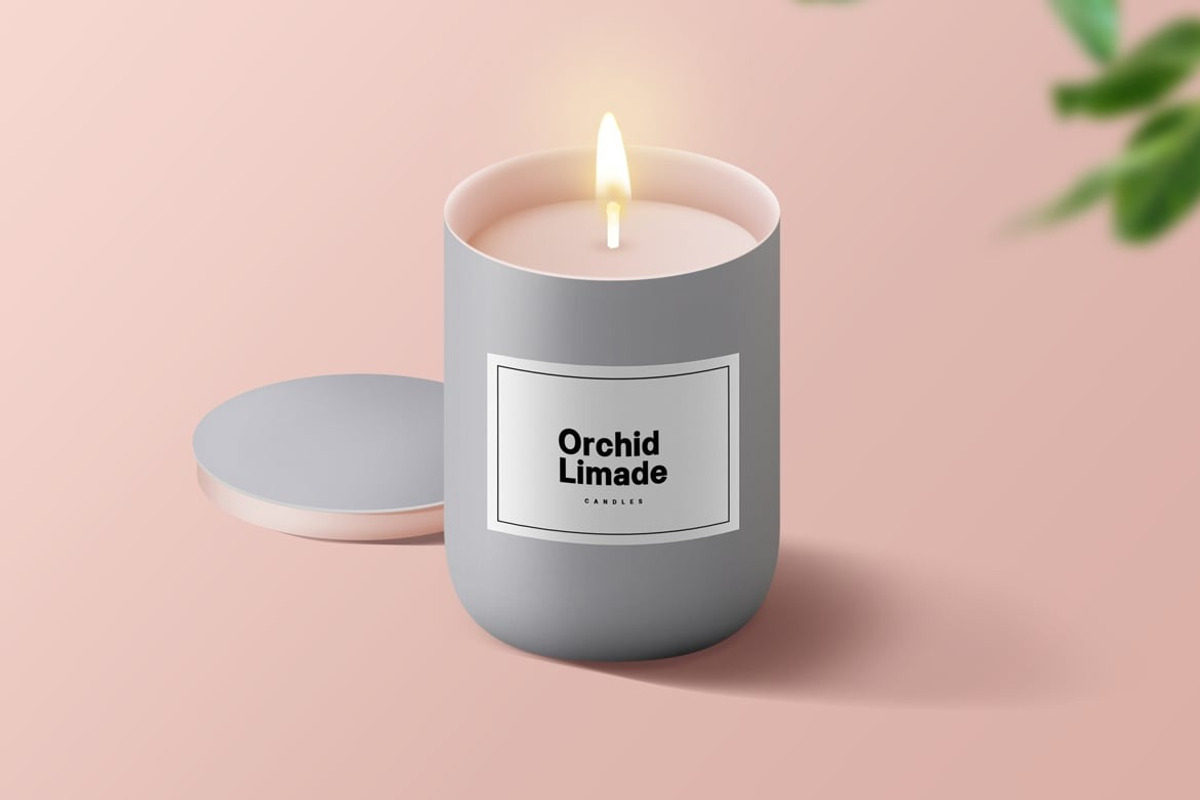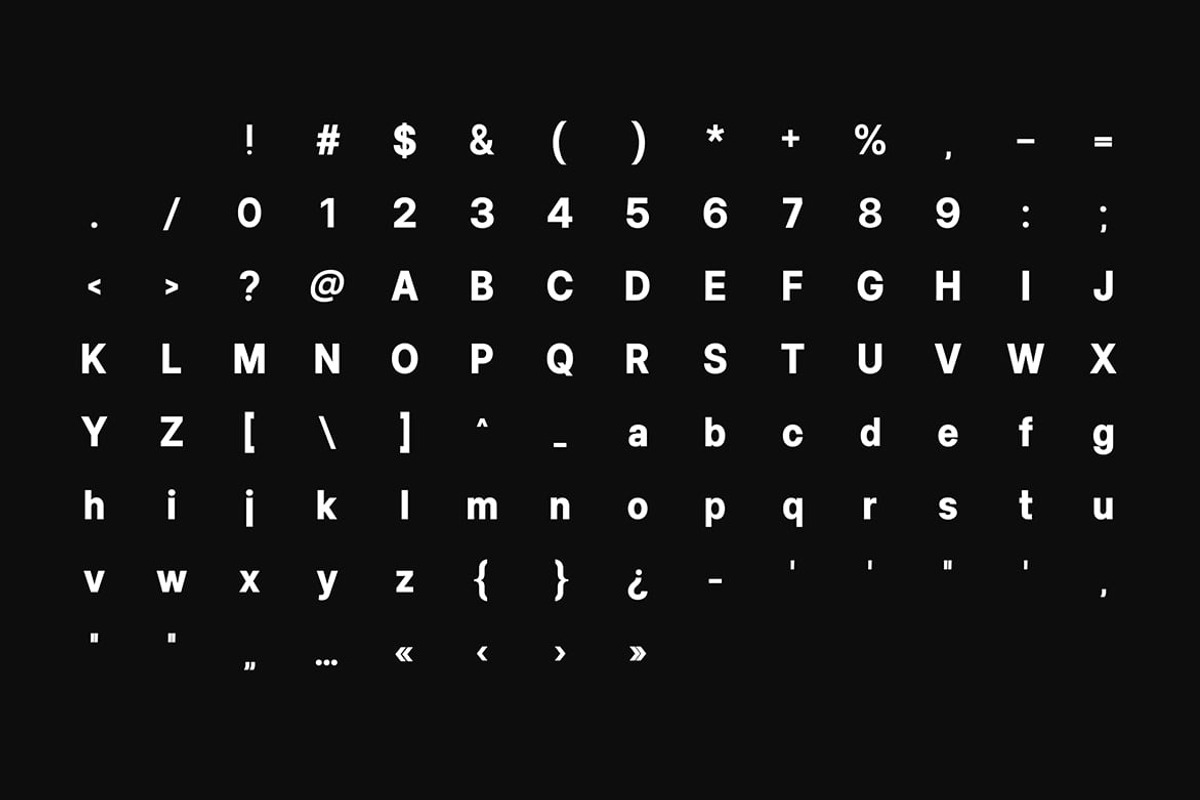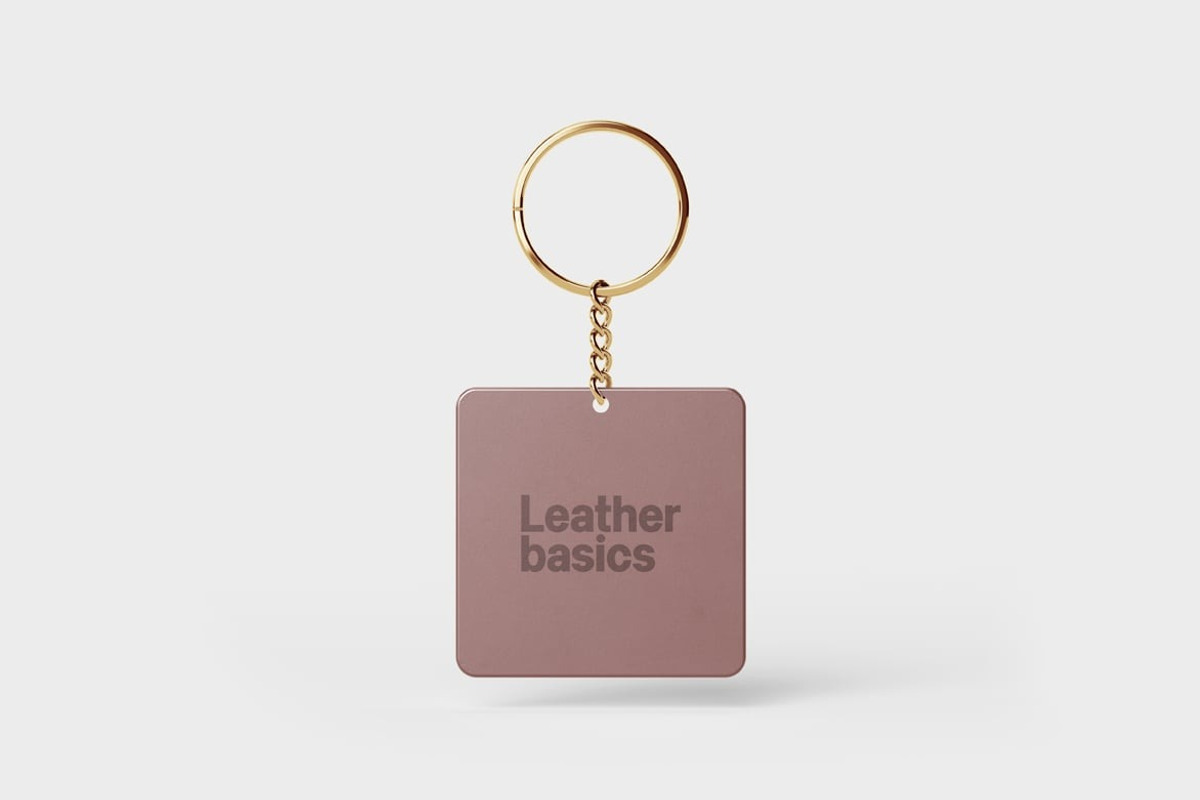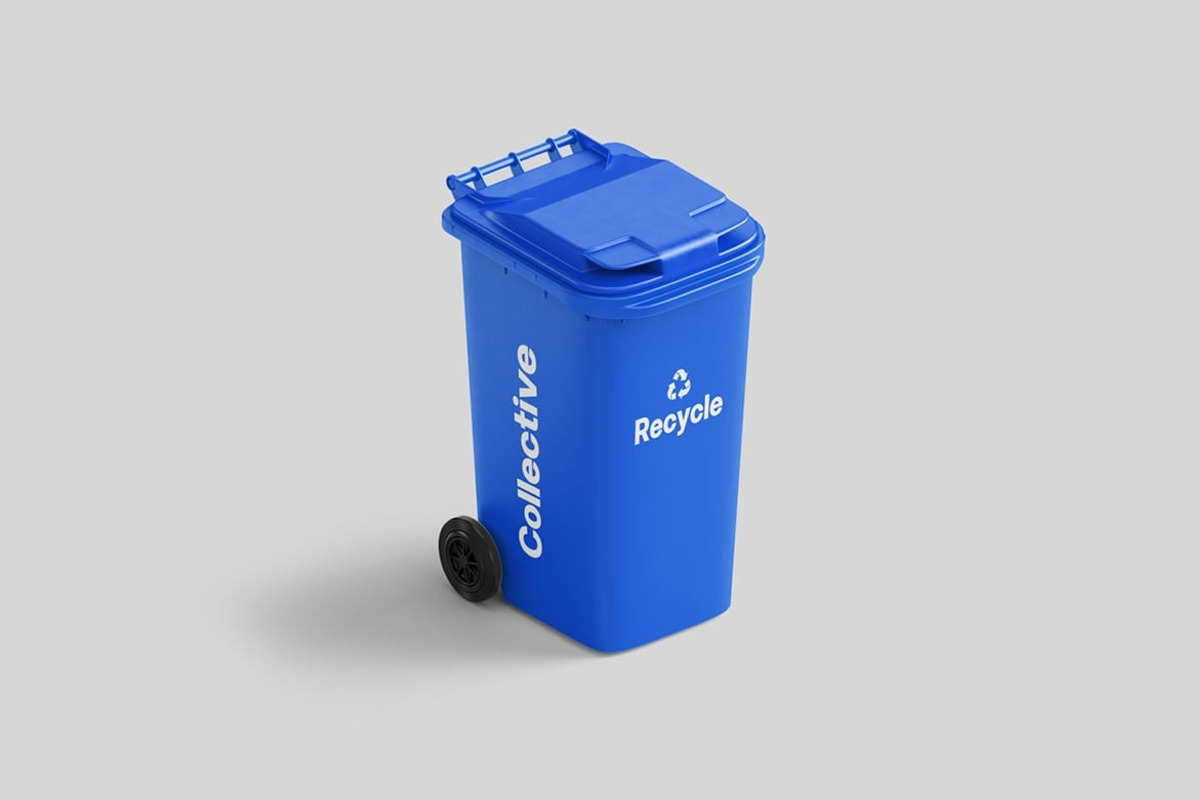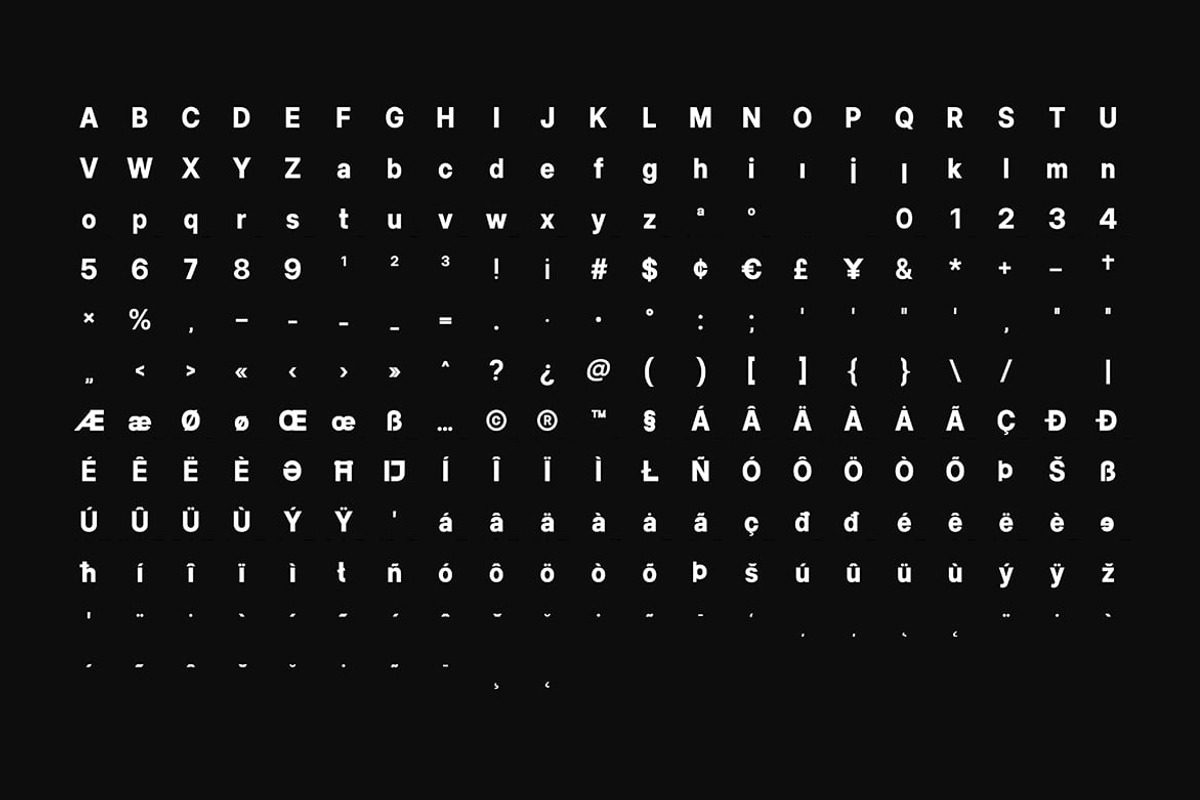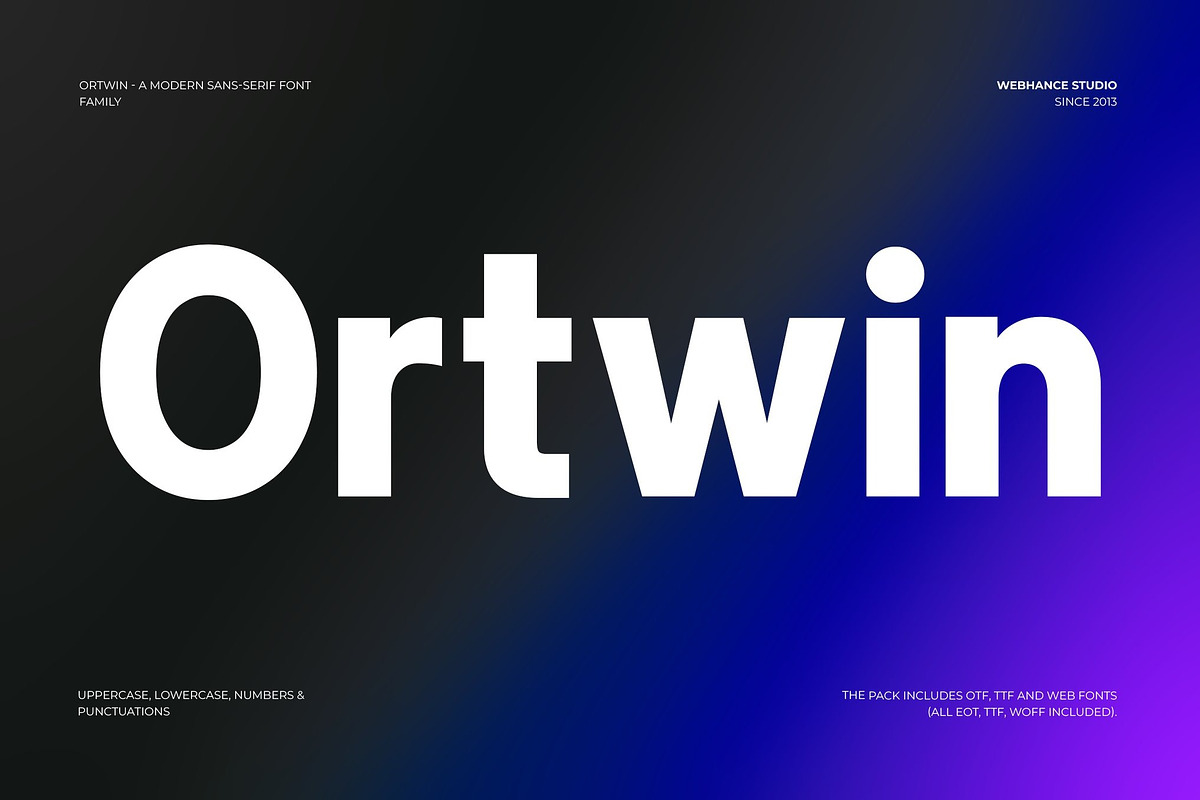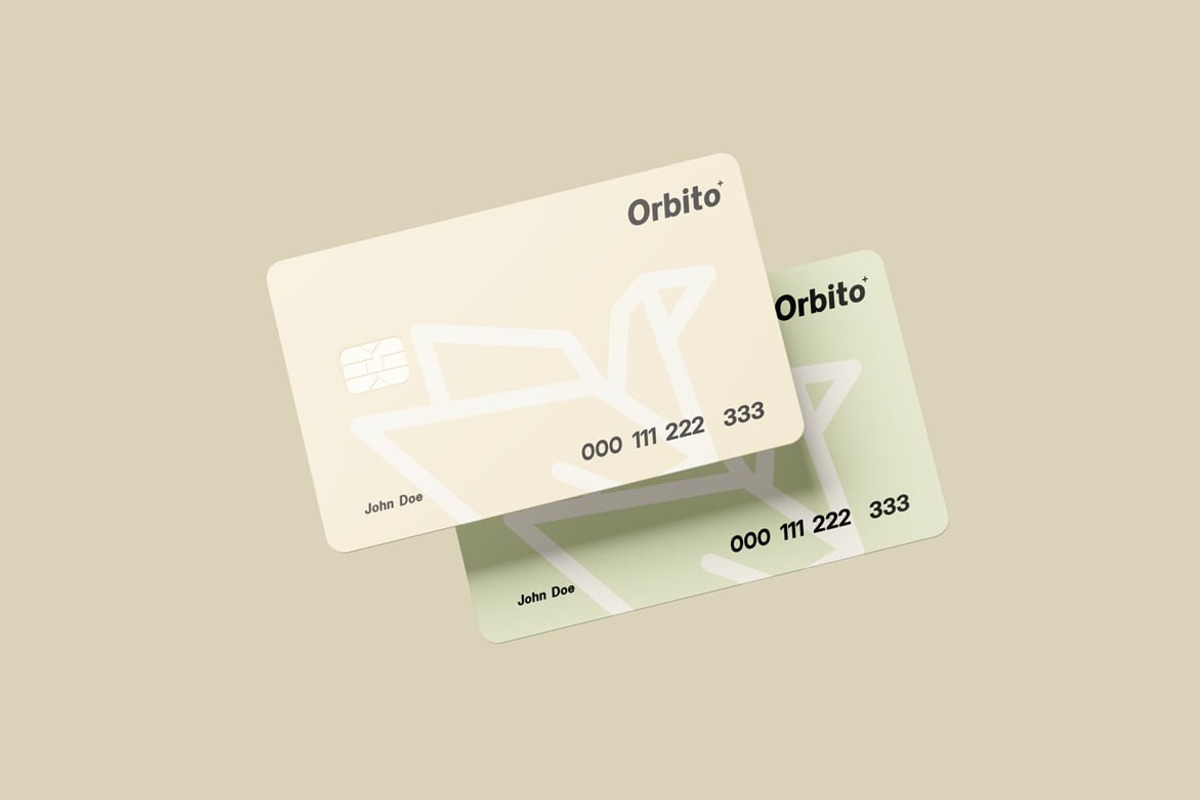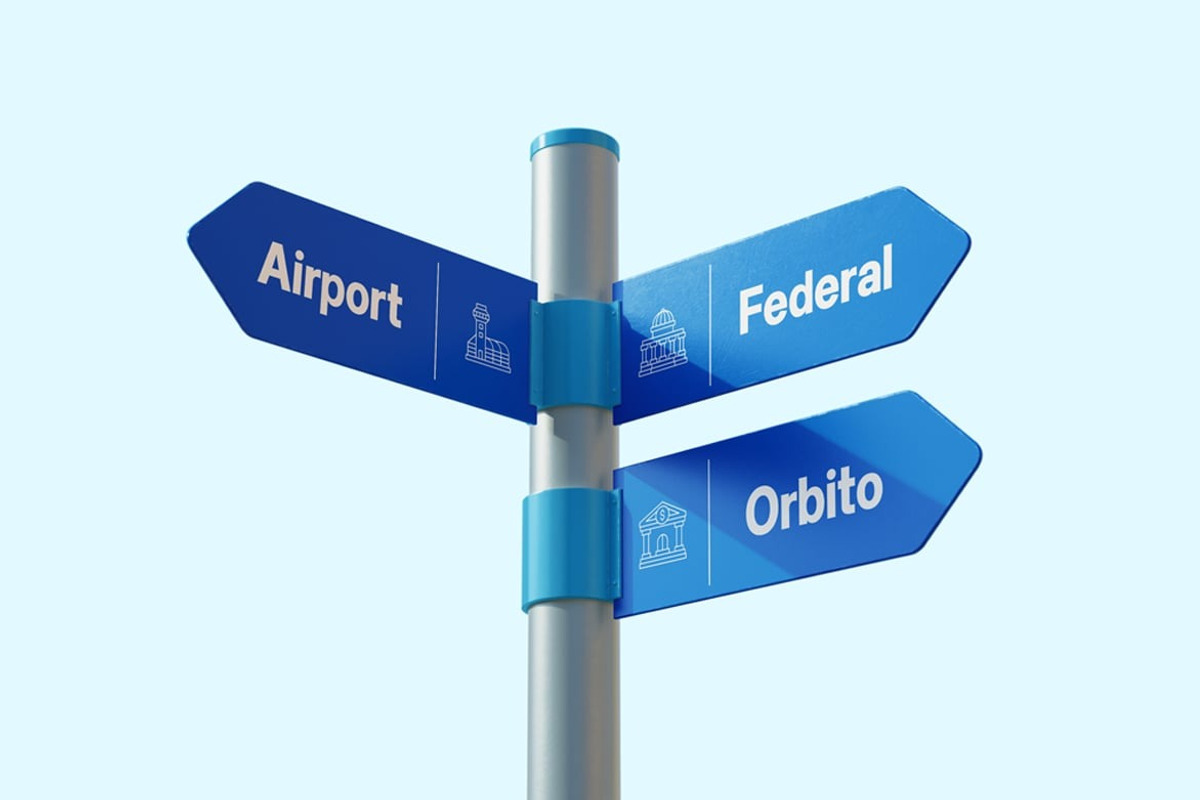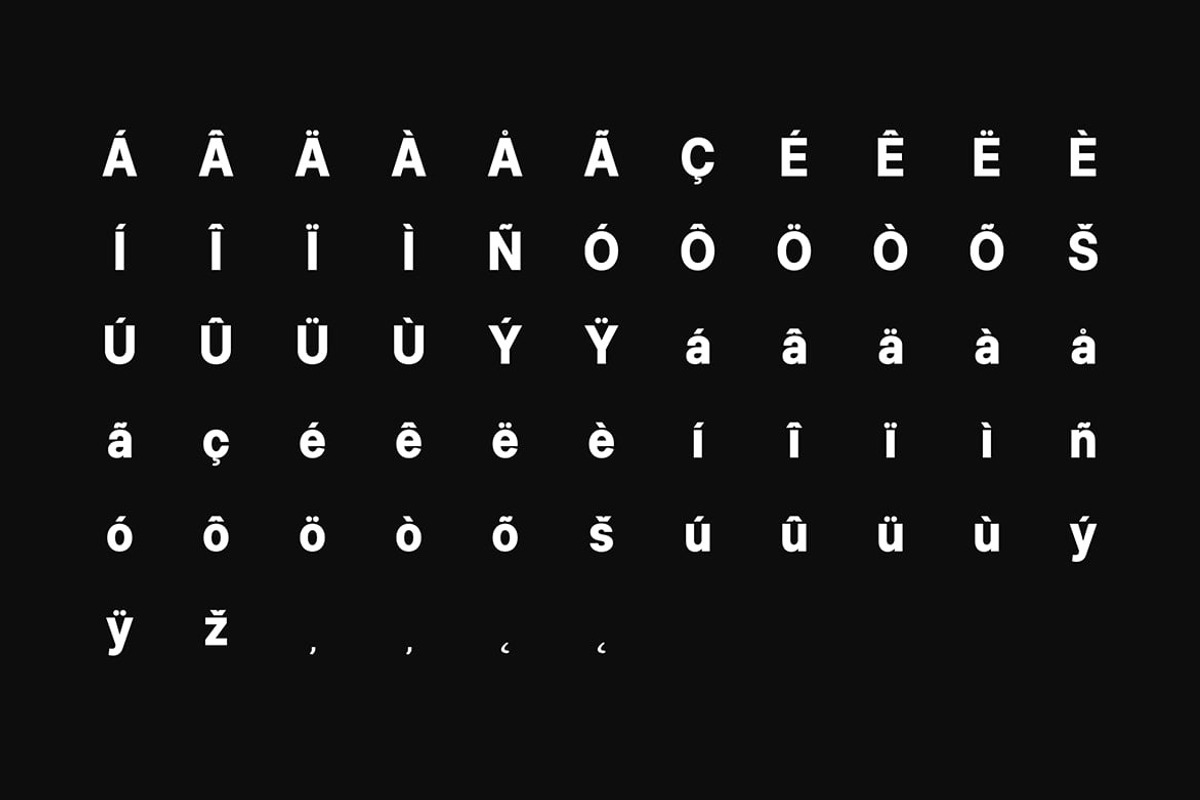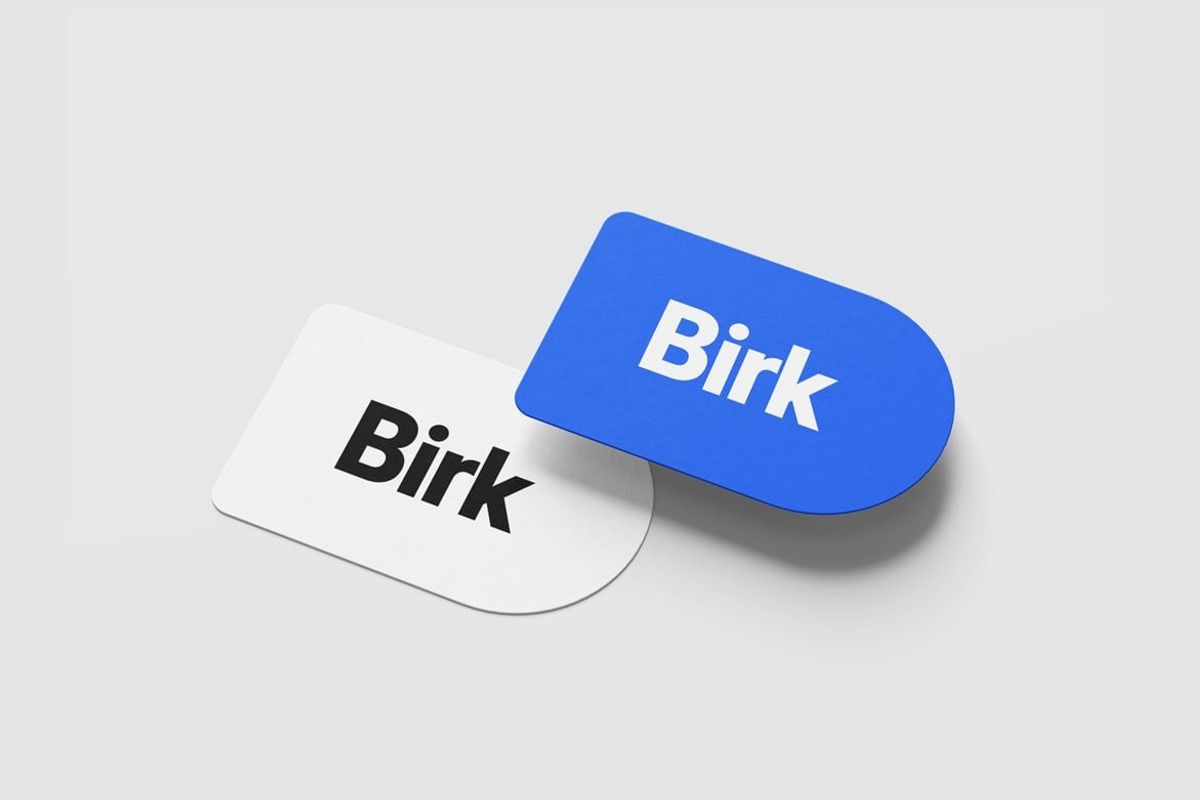
Ortwin - Modern Sans-Serif Font
Ortwin – Modern Sans-Serif Font
Ortwin is a clean and contemporary sans-serif typeface, crafted to embody simplicity and precision. With its clean lines and balanced proportions, Ortwin is designed to enhance readability and add a modern flair to any project. Currently available in one refined weight, with additional styles in development, this font is an excellent choice for branding, editorial design, and digital interfaces.